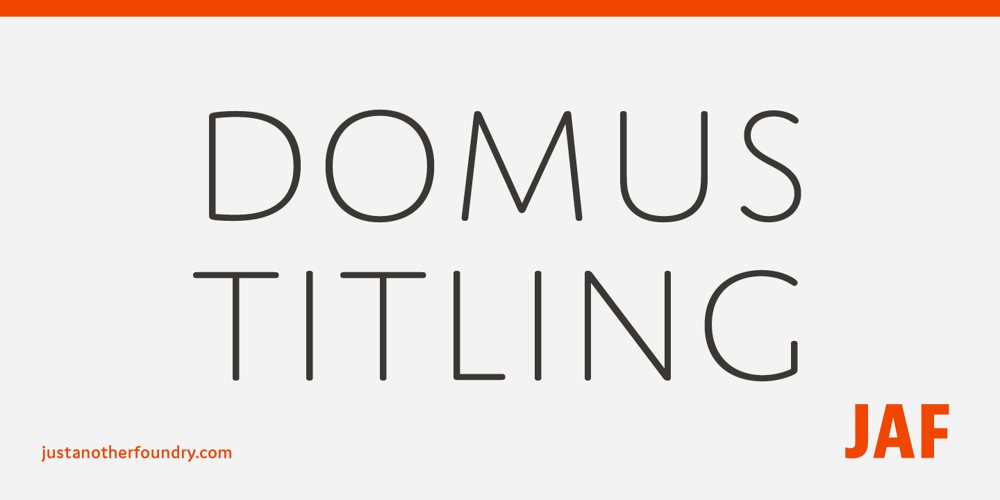
JAF Domus Titling Font Family was designed by Tim Ahrens and published by Just Another Foundry. JAF Domus Titling contains 7 styles and family package options. JAF Domus Titling is a rounded typeface with classical Roman proportions. It is unique in that it was designed as an all-caps sans from the beginning. The fonts range from Extralight to Extrabold and include a large number of accented characters as well as small caps and alternates.